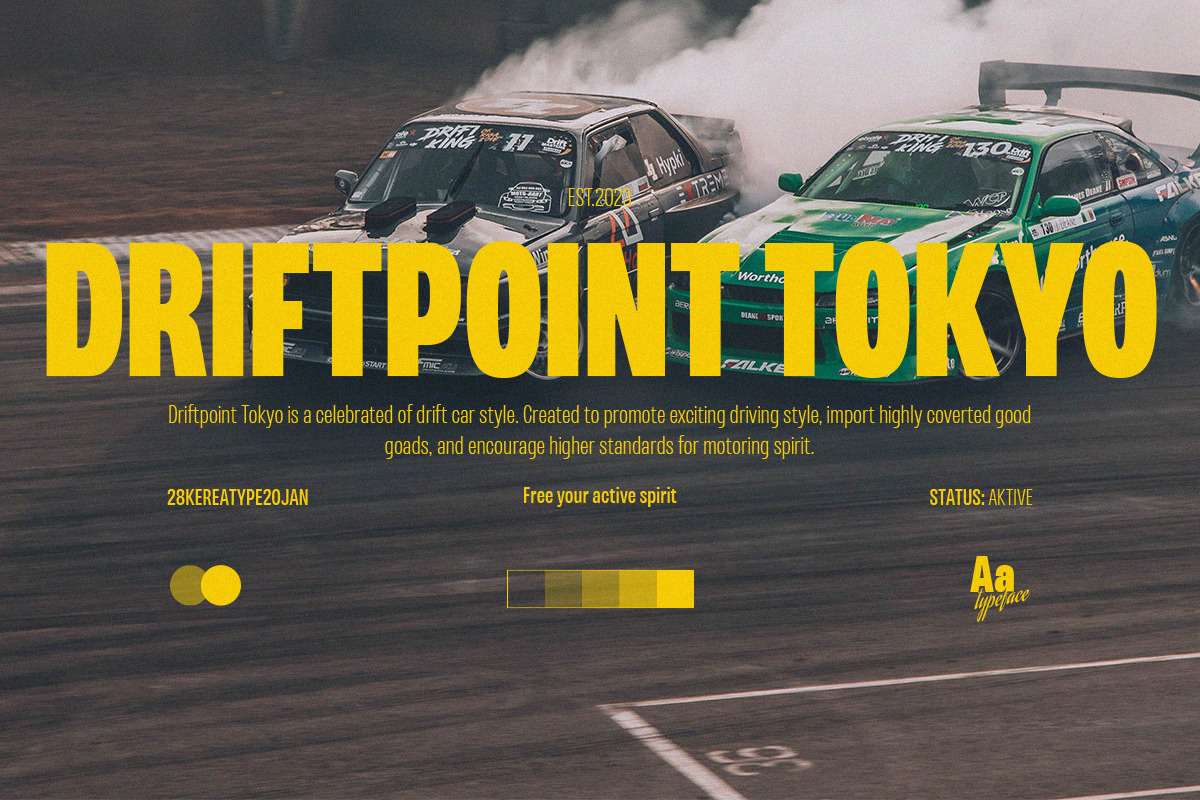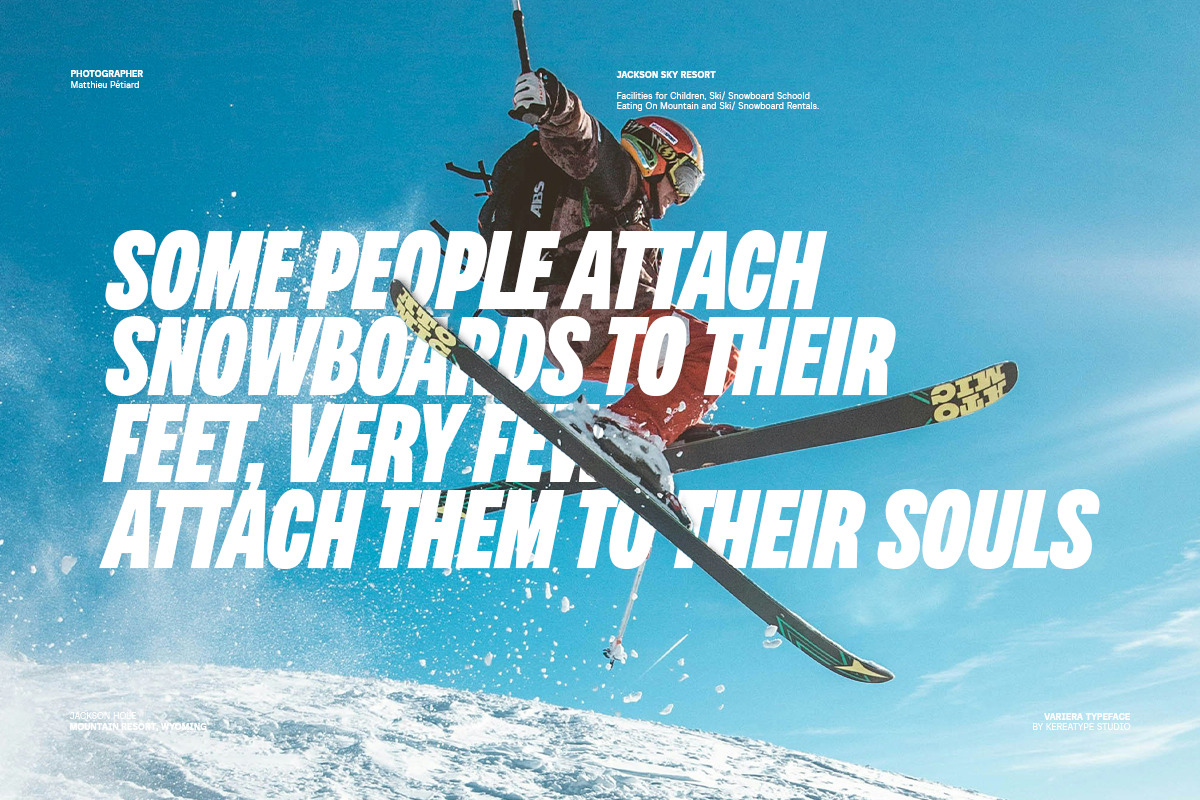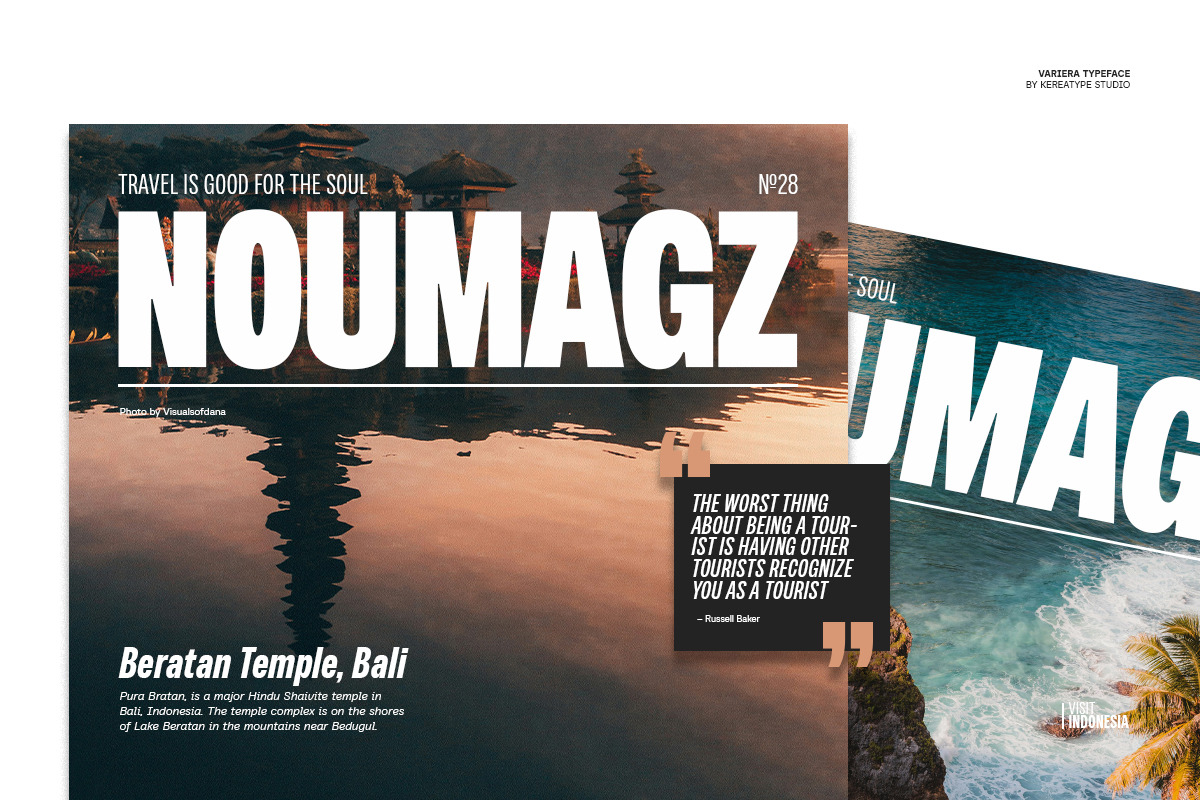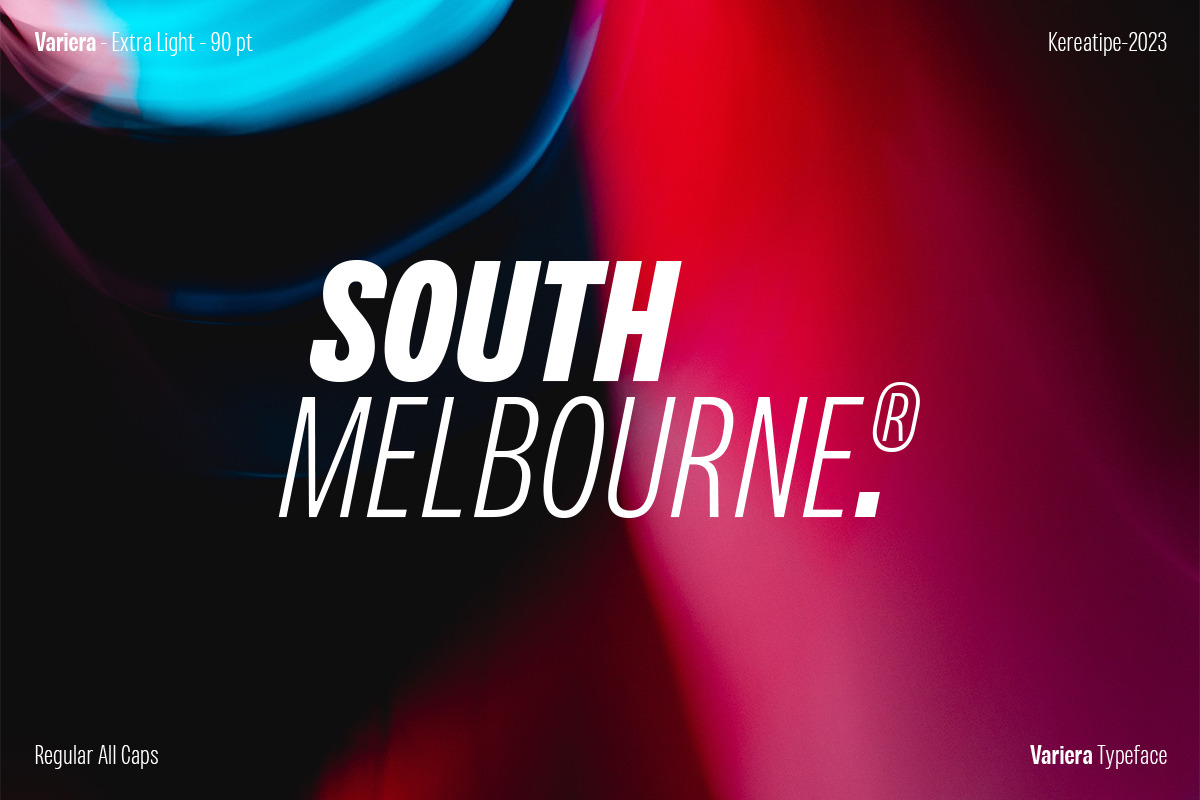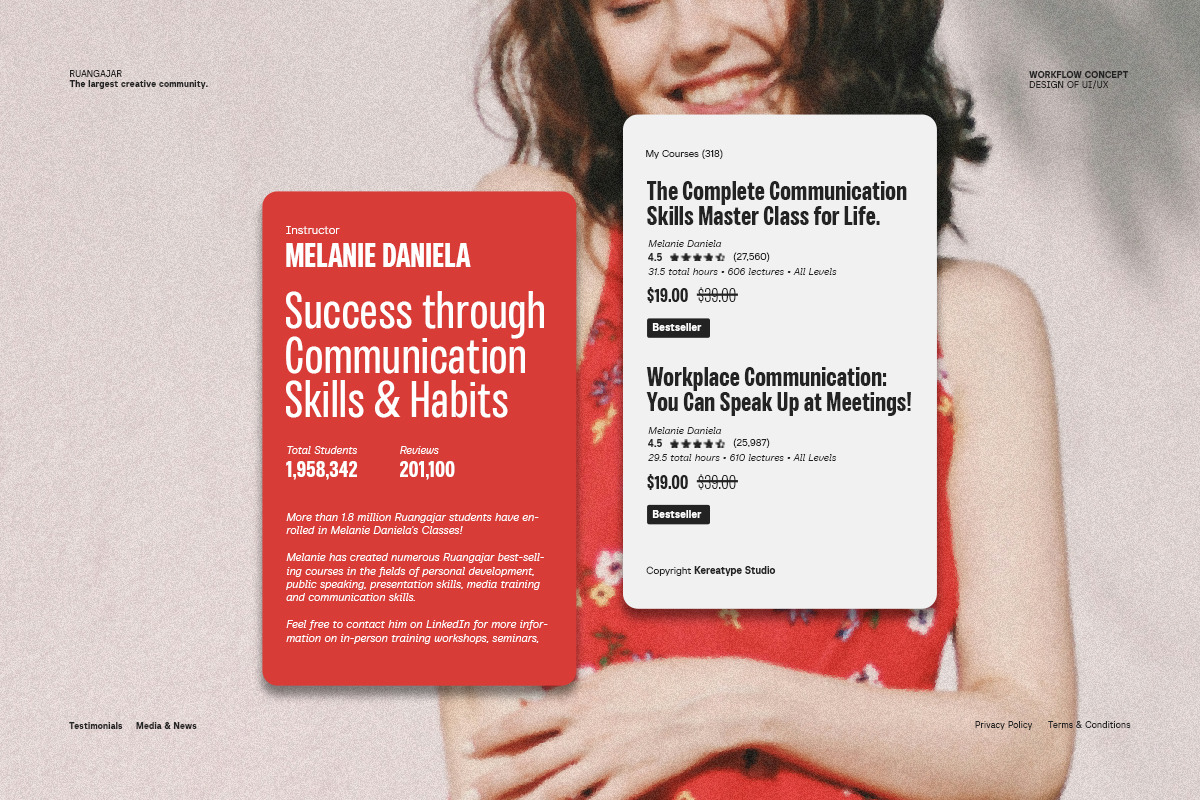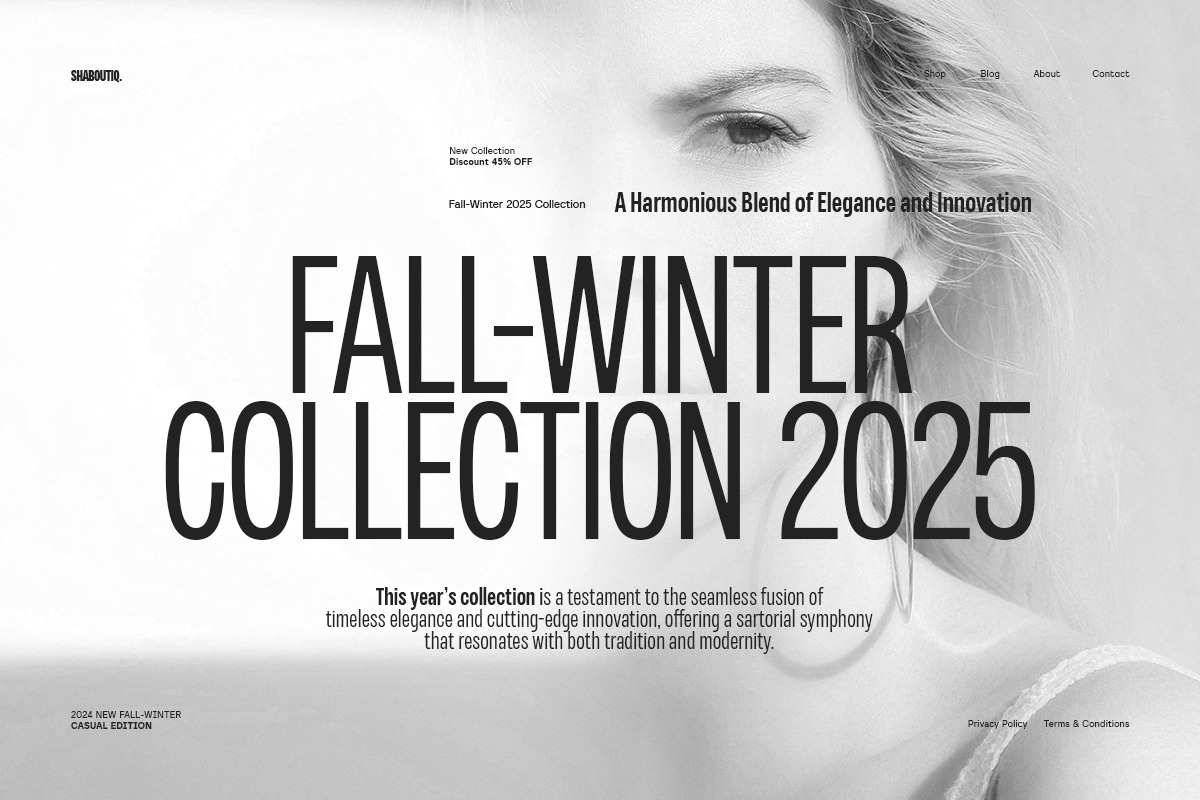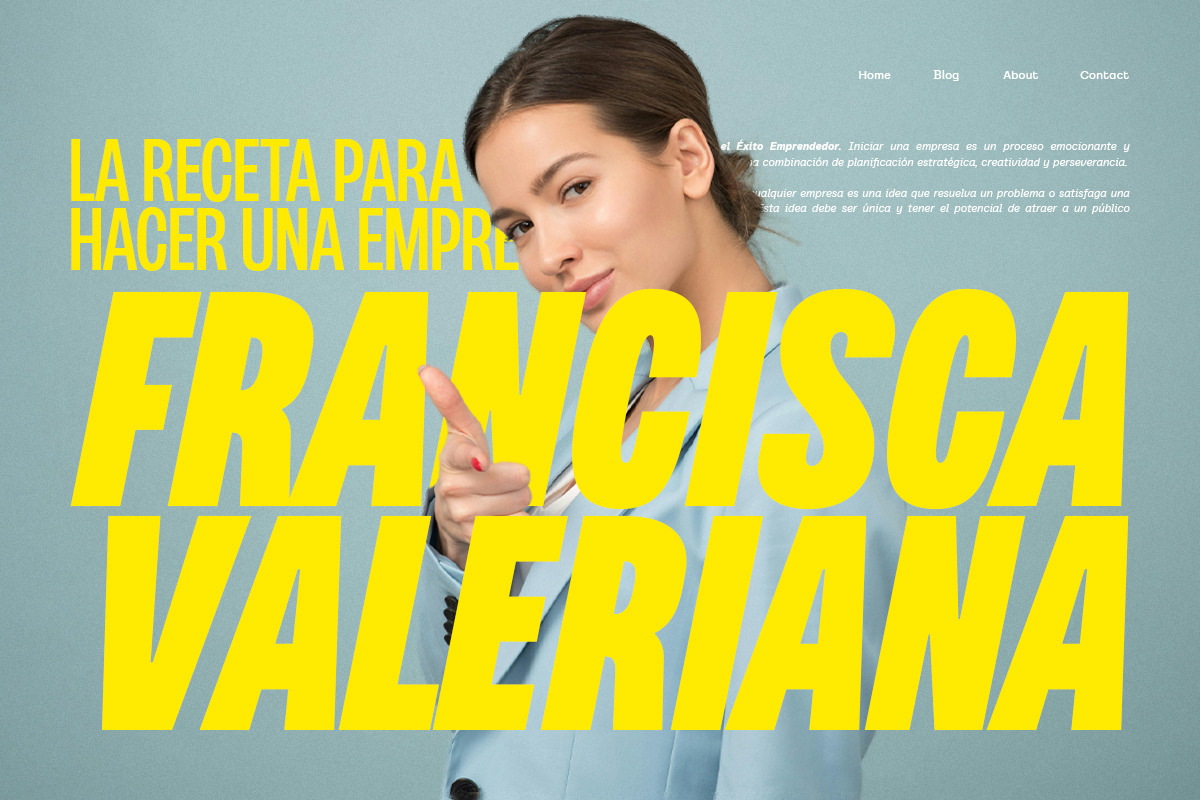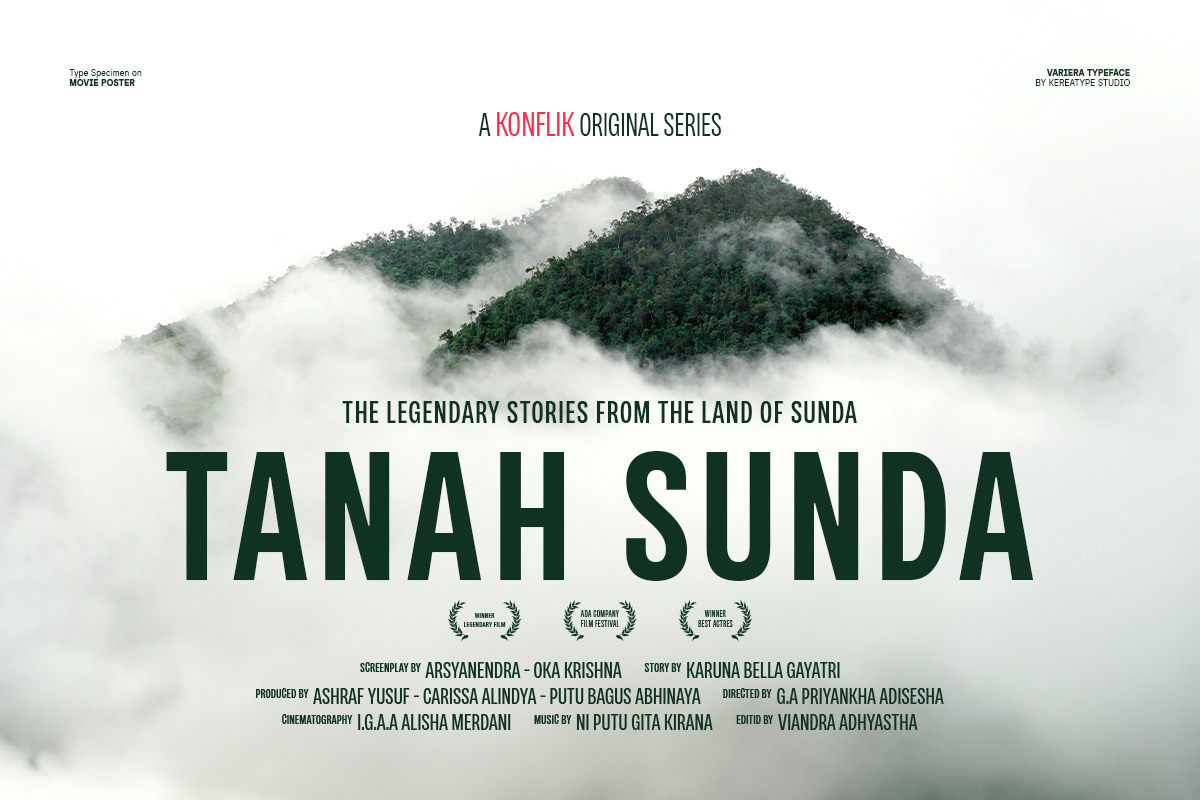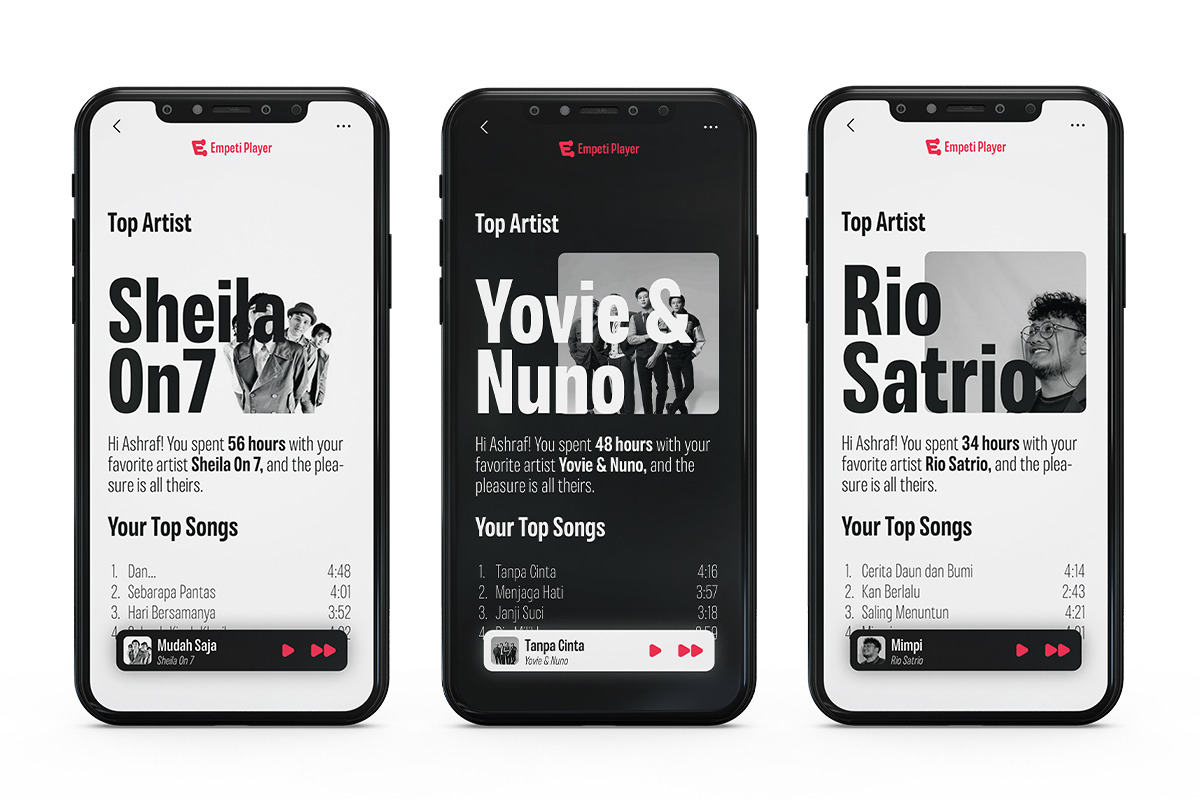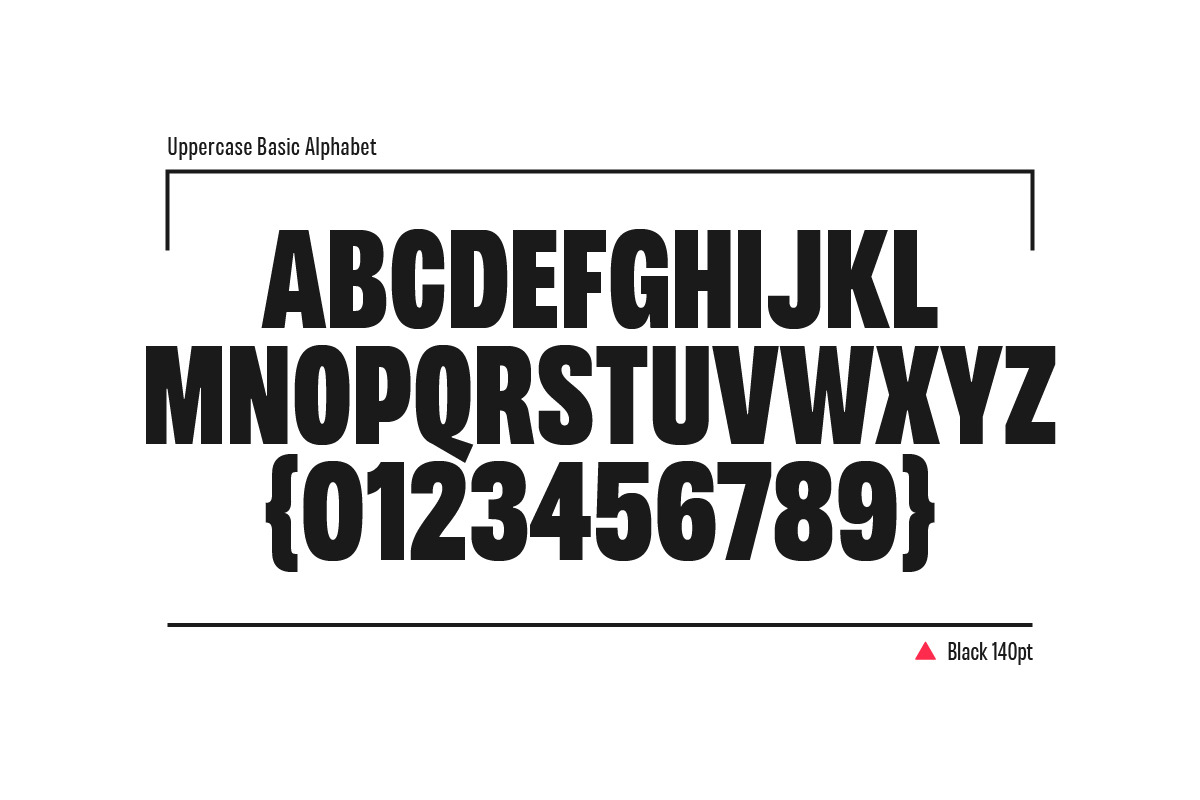
Variera - Geometric Sans Serif
Variera is geometric with a semi-condensed sans serif typeface. It comes in 9 weights ranging from thin to black with matching italics that stand out in headlines and exude a charming personality.
Variera is a Utility display type that is flavor in motion. Each part of its system works together to captivate you, combining emotion and usability, allowing you to create attractive and unique designs.
Variera is a versatile font system, designed primarily for display uses with a need for visual impact.
- Nine weights with true italics
- OpenType features including stylistic sets, contextual punctuation & more